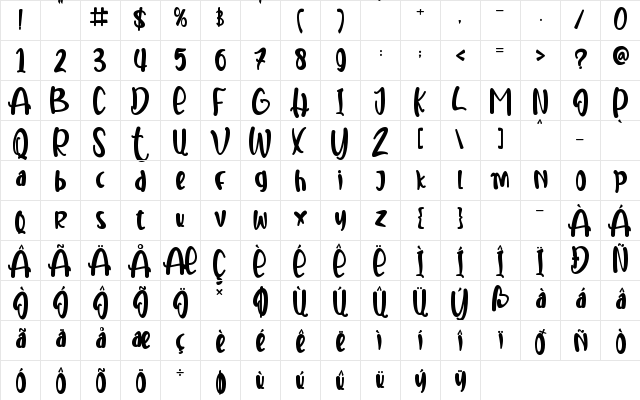
Sweet Unicorn Regular
| Designer | Stefani Letter |
Design Context for Sweet Unicorn Typeface
Sweet Unicorn is a composed and adaptable typeface that performs quietly and consistently across a wide range of design contexts.